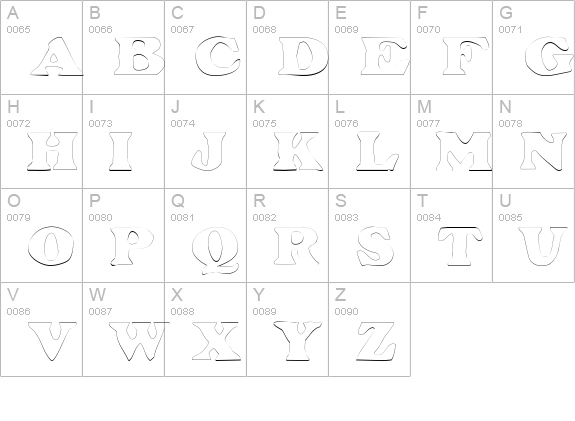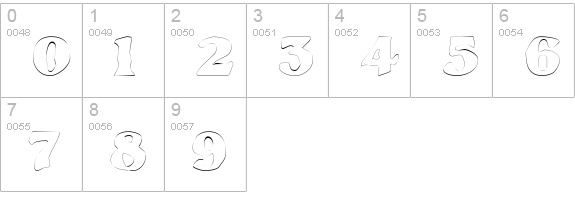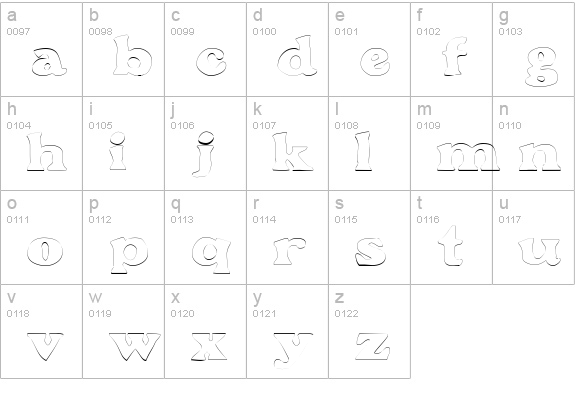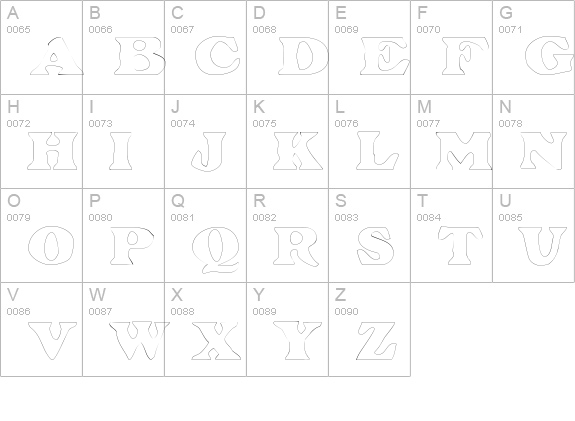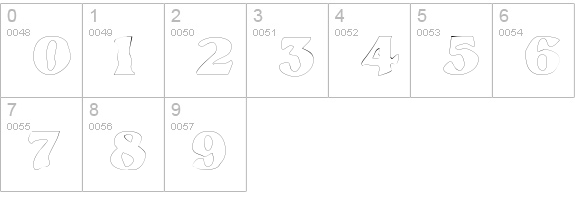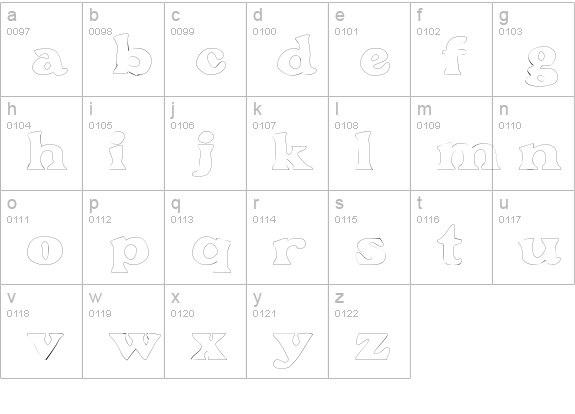
GrantOutline Font Details
GrantOutline font is a modern and stylish typeface that exudes sophistication and elegance. Its clean lines and sharp edges give it a contemporary look that is perfect for a wide range of design projects. The font features a unique outline style that adds a touch of creativity and individuality to any text. One of the best things about GrantOutline font is that it is completely free to download at FontsMarket.com. Whether you are working on a personal project or a professional design, this font is a versatile choice that will elevate your work to the next level. With its sleek design and easy readability, GrantOutline font is sure to make a statement in any design. Download it today and add a touch of modern style to your projects.